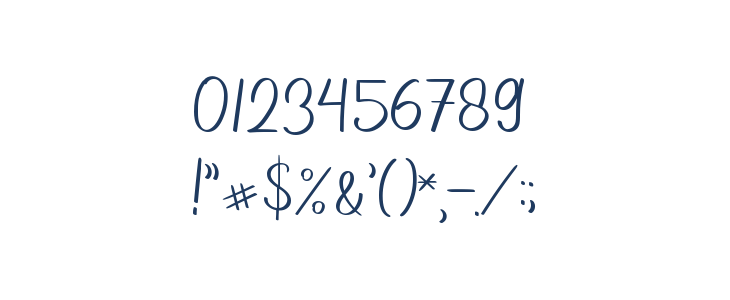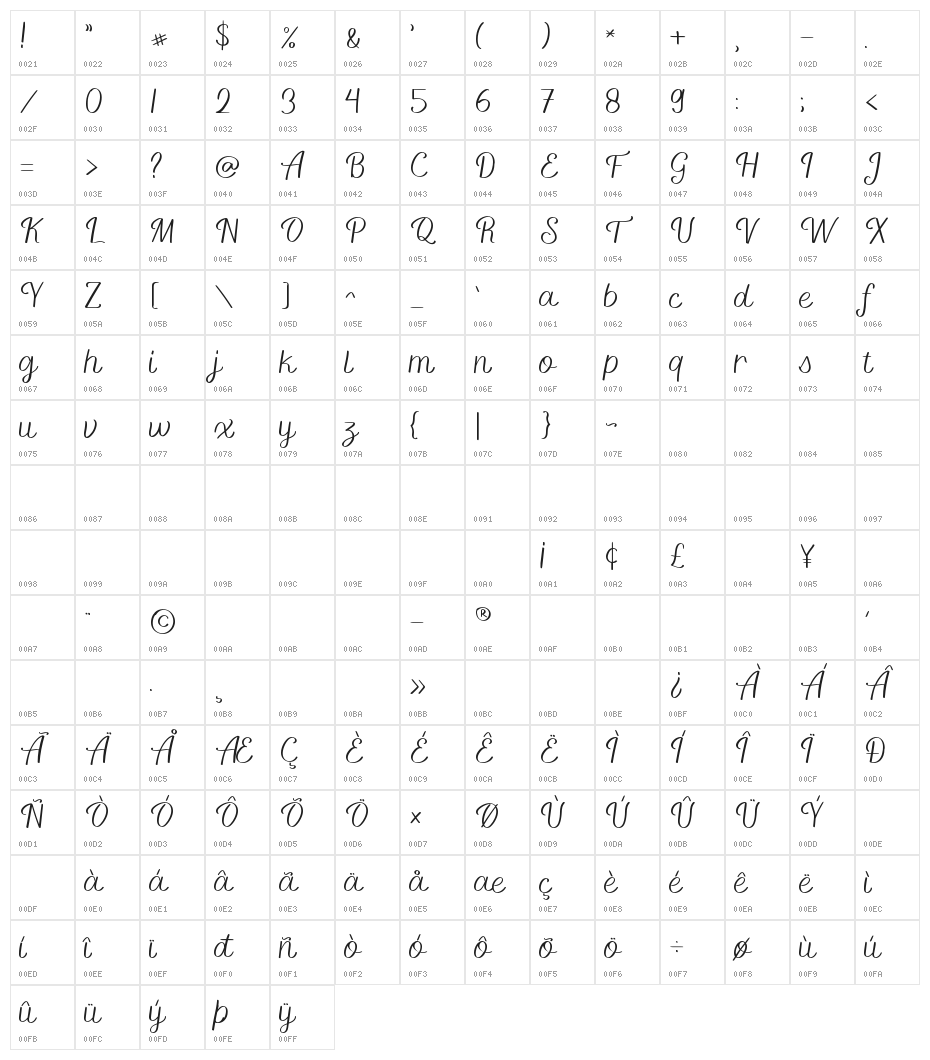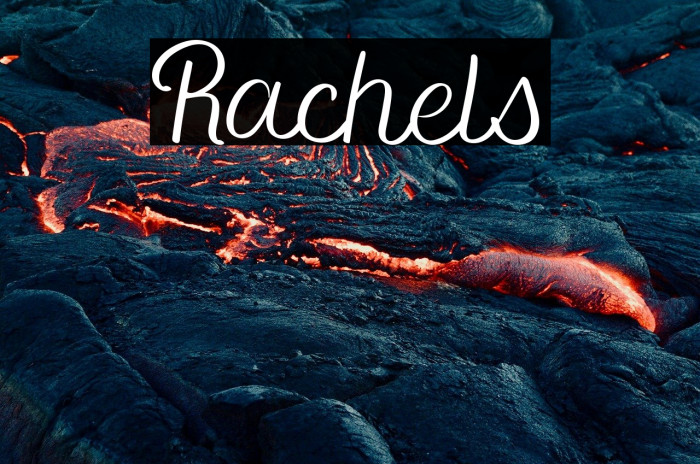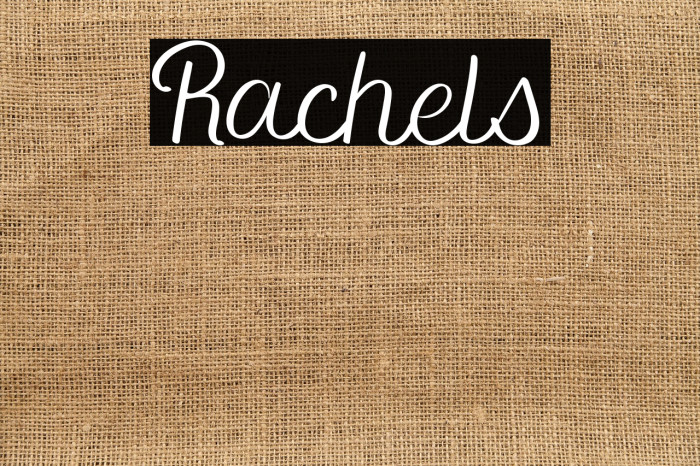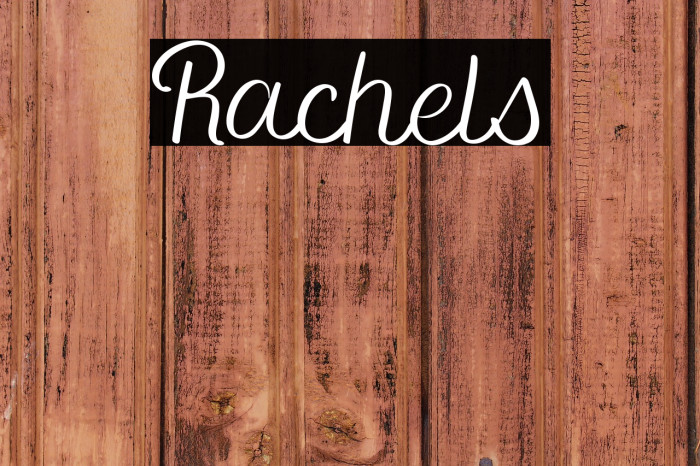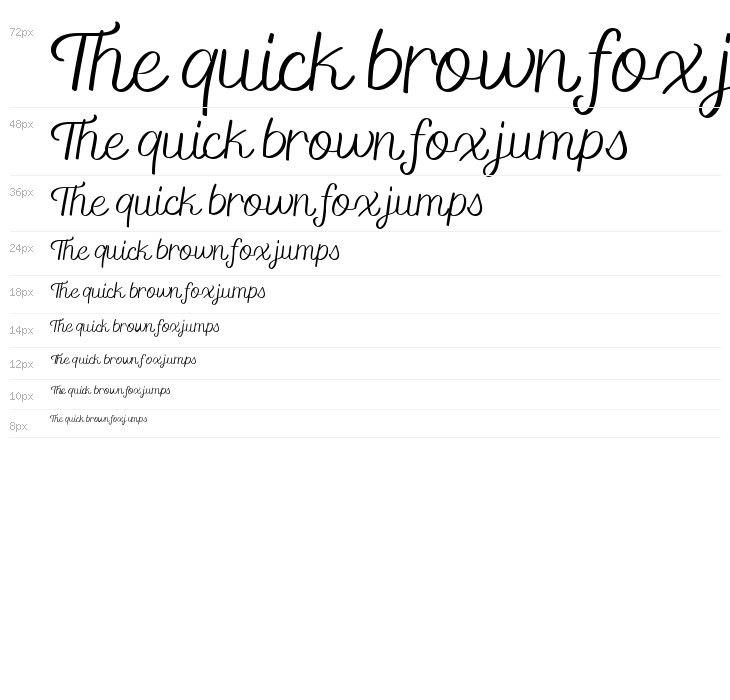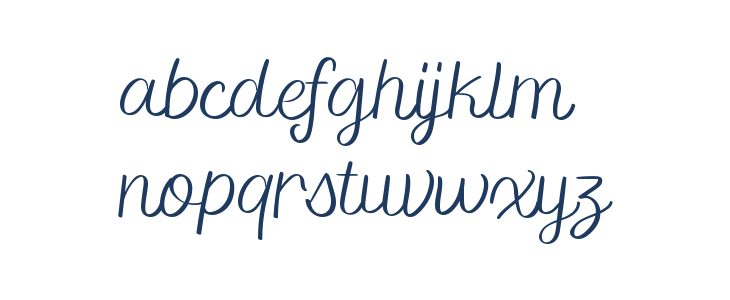
Rachels Font
Rachels Description
This font features a flowing, cursive style that exudes elegance and sophistication. The letters are connected in a smooth, continuous manner, giving it a handwritten appearance. The uppercase letters maintain a consistent height, while the lowercase letters exhibit a slight slant, enhancing the script-like quality. The numerals are clear and legible, complementing the overall aesthetic. Special characters are designed with the same fluidity, ensuring a cohesive look across all symbols. This font is ideal for projects that require a personal touch, such as invitations, greeting cards, or branding materials.
Overall StyleElegant
Use CaseLogos, Invitations, Greeting Cards
Proposed ProjectsIdeal for invitations, greeting cards, branding, and personal projects.